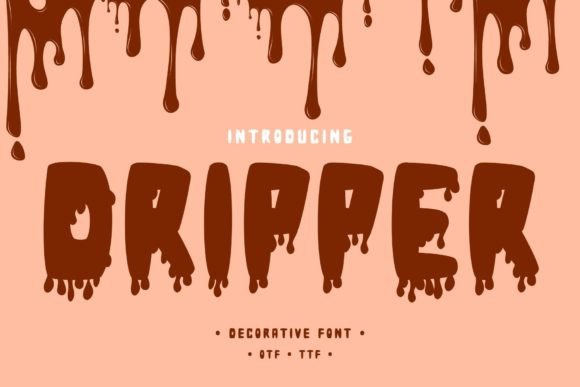
Embark on a typographic adventure with Dripper Font, the ultimate display font that oozes character and intrigue. Its unique design blends the thrill of the unknown with the charm of authenticity, making it the perfect companion for all your creative endeavors.
Unleash your imagination and let Dripper Font captivate your audience. Whether you're designing Halloween-themed projects, crafting eye-catching blog posts, or creating unforgettable logos and branding, Dripper Font will add a touch of magic to your work. Its playful personality shines through in invitations, greeting cards, planners, photo albums, and decorations, transforming ordinary designs into extraordinary experiences.
Immerse yourself in a world of creativity with Dripper Font. Its versatility knows no bounds, enhancing any project with a touch of individuality. Experiment with its unique letterforms to create stunning posters, flyers, social media graphics, and more. The possibilities are endless, and the results are sure to amaze.
Unlock the power of expression with Dripper Font. Its distinctive style commands attention, making it the perfect choice for headlines, titles, and any text that demands impact. Its ability to convey emotions and messages with clarity and precision sets it apart from the ordinary.
Indulge in the beauty of Dripper Font. Its intricate details and carefully crafted characters exude an air of sophistication that elevates your designs to new heights. The font's organic flow and dynamic energy create a sense of movement and fluidity, captivating your audience with every stroke.
Embrace the captivating allure of Dripper Font. Its dark and mysterious undertones evoke a sense of curiosity and intrigue, drawing your audience into your creative world. Experience the thrill of the unexpected as Dripper Font takes you on a journey through the realm of imagination.
Dare to be different with Dripper Font. Its unconventional style breaks free from the ordinary, making your designs stand out from the crowd. Embrace the unconventional and let Dripper Font unleash your creativity, pushing the boundaries of design and leaving a lasting impression on your audience.